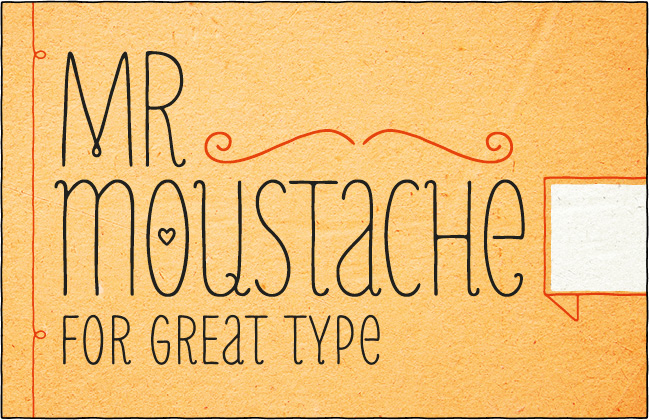
Give your designs a masculine look.
Today’s deal gets you Mr. Moustache – bundle of open type fonts, includes 10 unique fonts, upper & lowercase letters, frames, ornaments, dingbats, and more.
Extra thin letters, condensed and with a handwritten touch, Mr Moustache gives a warm and friendly feeling to your layout.
Key features:
- Super slim typeface
- Loads of design possibilities
- Mix and match font styles
- Create spiffy multicolored effects with regular and solid design elements